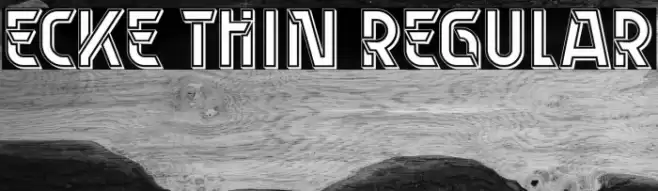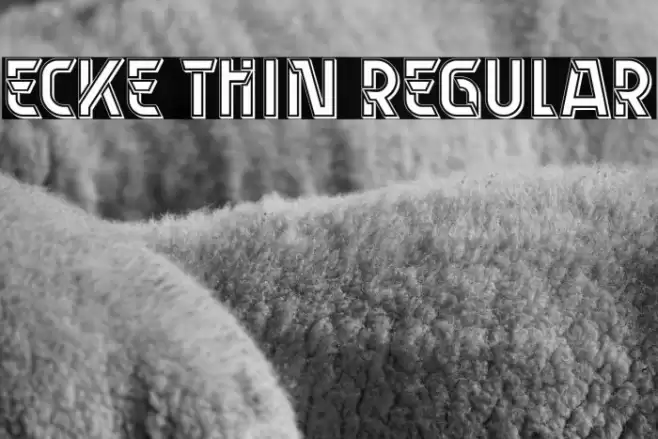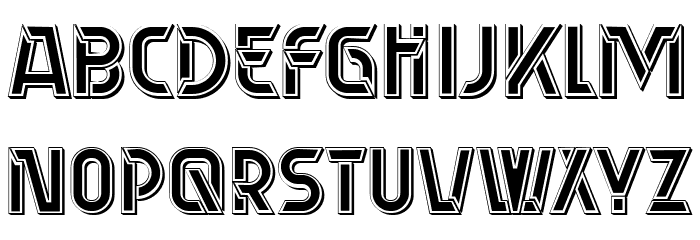
Ecke Thin Regular Font
Ecke Thin Regular Description
This font features a bold, geometric design with a three-dimensional effect created by the use of thick outlines and inner lines. The characters are uppercase only, with a futuristic and industrial aesthetic. The angular shapes and sharp edges give it a distinctive, modern look. The consistent thickness of the strokes and the uniform spacing between characters contribute to its structured appearance. This font is particularly striking due to its layered effect, which adds depth and visual interest, making it suitable for attention-grabbing headlines and titles.
A bold, geometric font with a three-dimensional, futuristic design from Uncategorized fonts.
- Proposed Projects: Ideal for use in posters, logos, branding, and any project requiring a modern, industrial feel.